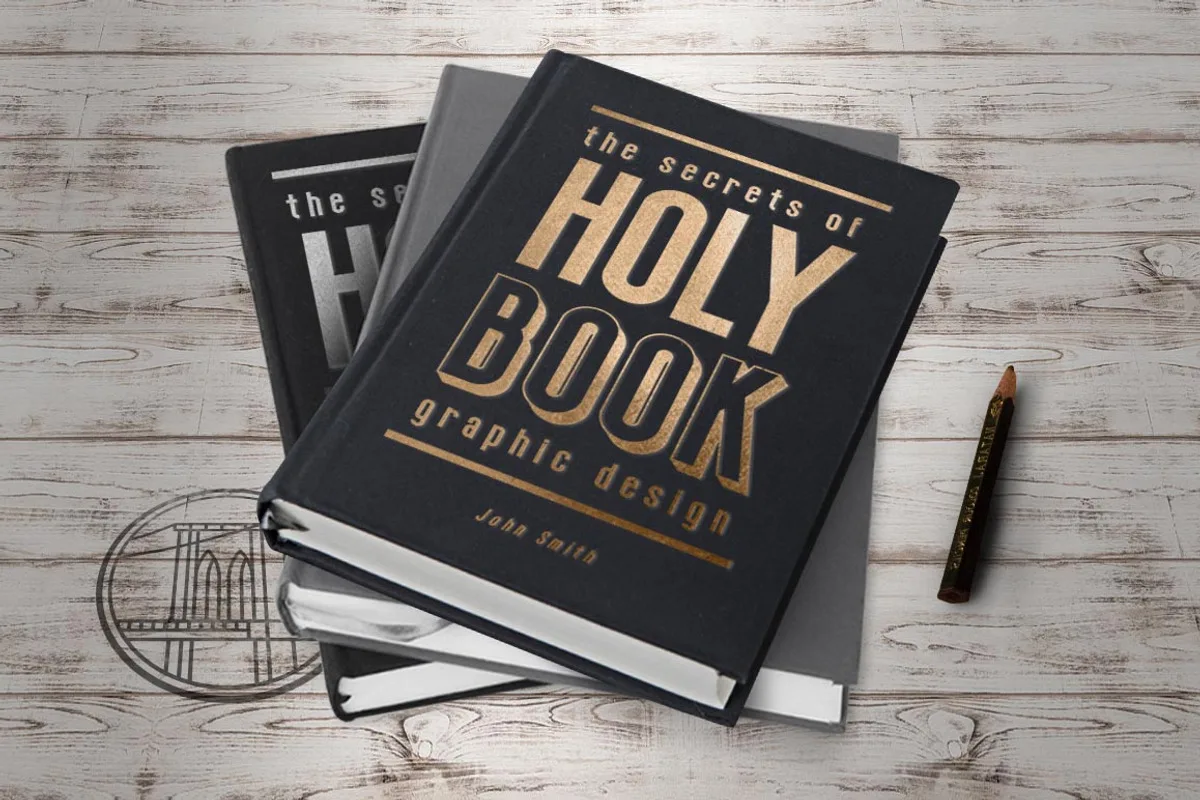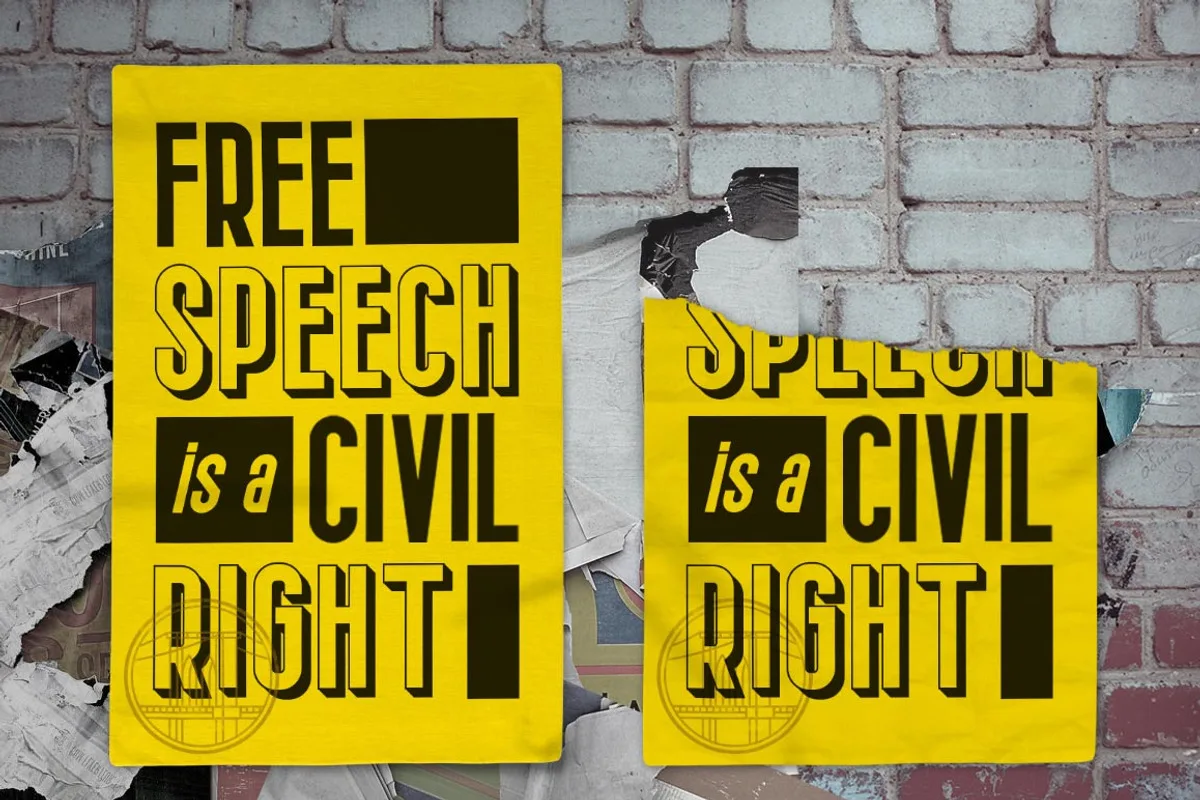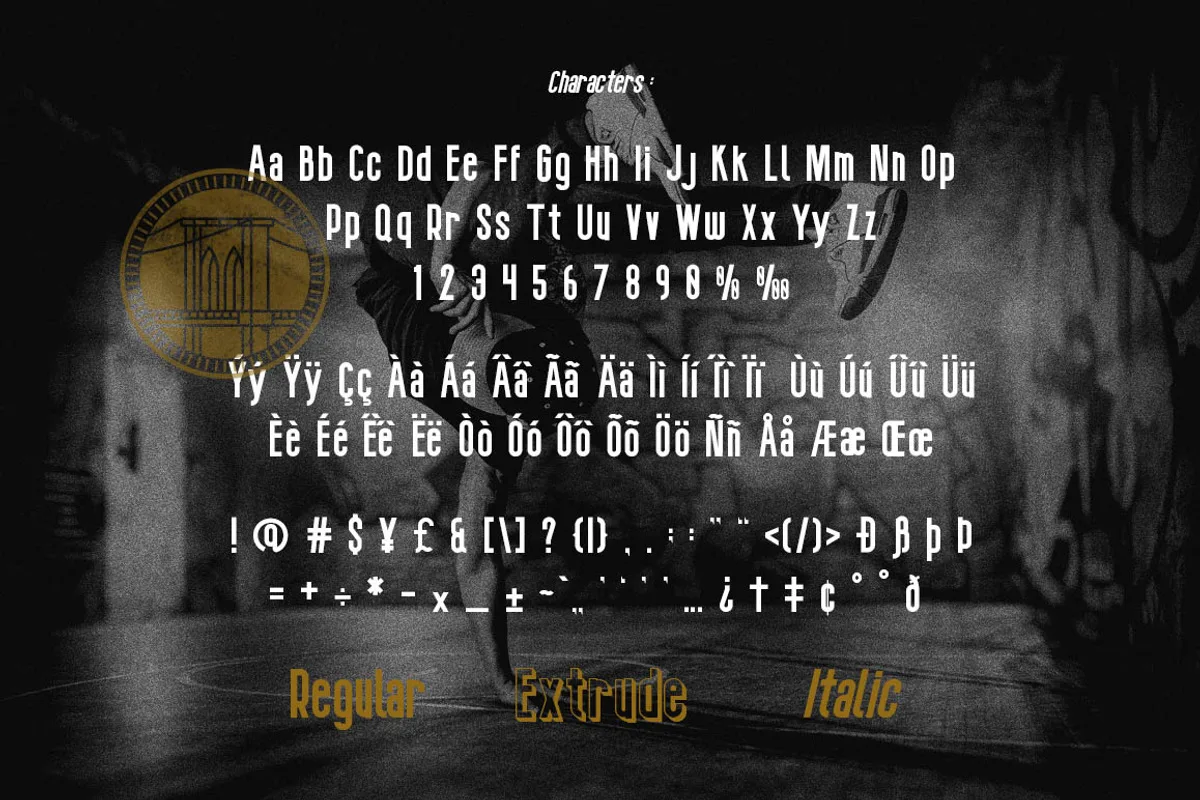
Brocklyn is a modern and friendly display typeface, good for headlines, displays and posters. Support multi language. Available in OTF, TTF, EOT, WOFF formats. Uppercase, lowercase, numerals, and punctuations.